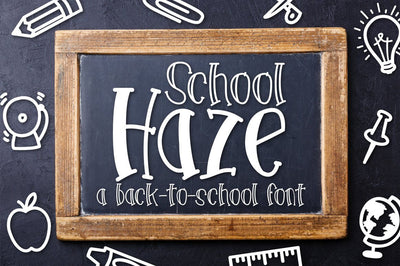
School Haze
School Haze is the perfect font to add to any school project. This font has great character and includes both a hollow and filled font file. It even includes great school doodles!